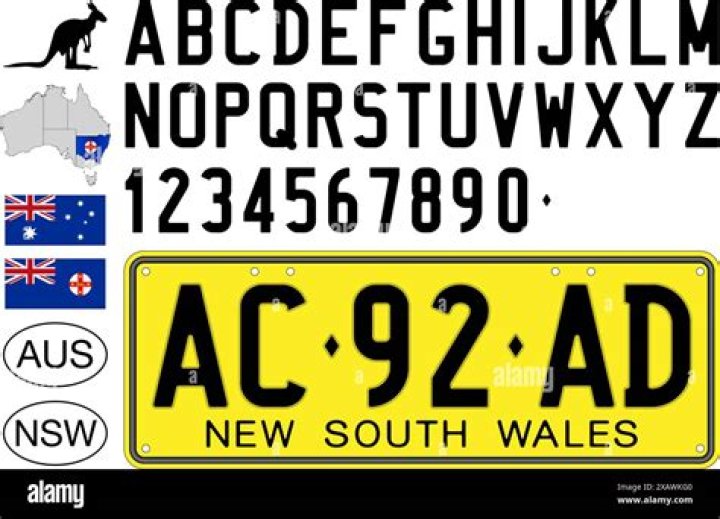
New South Wales offers a Eurostyle personalized plate with a font similar to but different from Germany’s FE Schrift (see very bottom of page), based on limited character samples we were able to examine. For example, the zero character does not have the cut-through gap at upper right, unlike FE Schrift’s zero.
What fonts are allowed on number plates?
Number Plate Legal Font – Charles Wright The mandatory font specified in the Road Vehicles (Display of Registration Marks) Regulations 2001 is the Charles Wright font. It is illegal for any vehicle being used on the public highway to have a number plate which does not conform to the usage of this font.
Can you get 7 letter number plates in NSW?
Personalised plates are available up to 7 characters, in the following colour combinations: A white background with ochre characters.
What font is used for number plates in Australia?
AUSTRALIAN VEHICLE REGISTRATION PLATE FONT (Victoria) – VICPLATE. This font will enable you to make mock-ups of VIC vehicle registration plates. The font is not an exact match but is 99% accurate.
What do NSW number plates look like?
Hence, the current format was introduced, consisting of two letters, two numbers, and two more letters, starting at AA-00-AA. Plates continue to consist of black characters on a lemon yellow background, with reflective sheeting.
Can I change the font on my number plate?
Whilst it’s tempting to opt for funky fonts and showy graphics, the law states that you must not alter, rearrange or misrepresent letters or numbers.
What is the number plate font situation in Australia?
The number plate font situation in Australia is similar to the United States in one respect, in that plates are administered separately by each state or territory. However, there the basic similarity ends. Whereas in the U.S. most plates are made in
Why is Series B used for number plates in Victoria?
Similarly, with the FHWA Series of fonts in prevalent use on highway signs in Australia, it wouldn’t be a stretch to suggest Series B was adopted by Victoria as a font closely compatible with the needs of number plates when it switched to reflective plates in 1977.
What is the average number plate size in Australia?
Number plate sizes. Up until about 2003, both Australia and New Zealand used number plates intermediate in size between U.S. and European plates: wider than U.S. license plates but less so than Europlates, and taller than Europlates but less so than U.S. tags. Standard Australian size is 14.5×5.3” (372 mm by 135 mm), and continues to be used there.
What font is used on Victoria personalized plates?
Victoria: Eurostyle personalized plates are offered with exact version of FE Schrift font. Click font name link or image below for a full character showing, additional information, and download links. Legend: Font Name | Year Designed, Designer, Permitted Use. Additional notes follow if applicable.